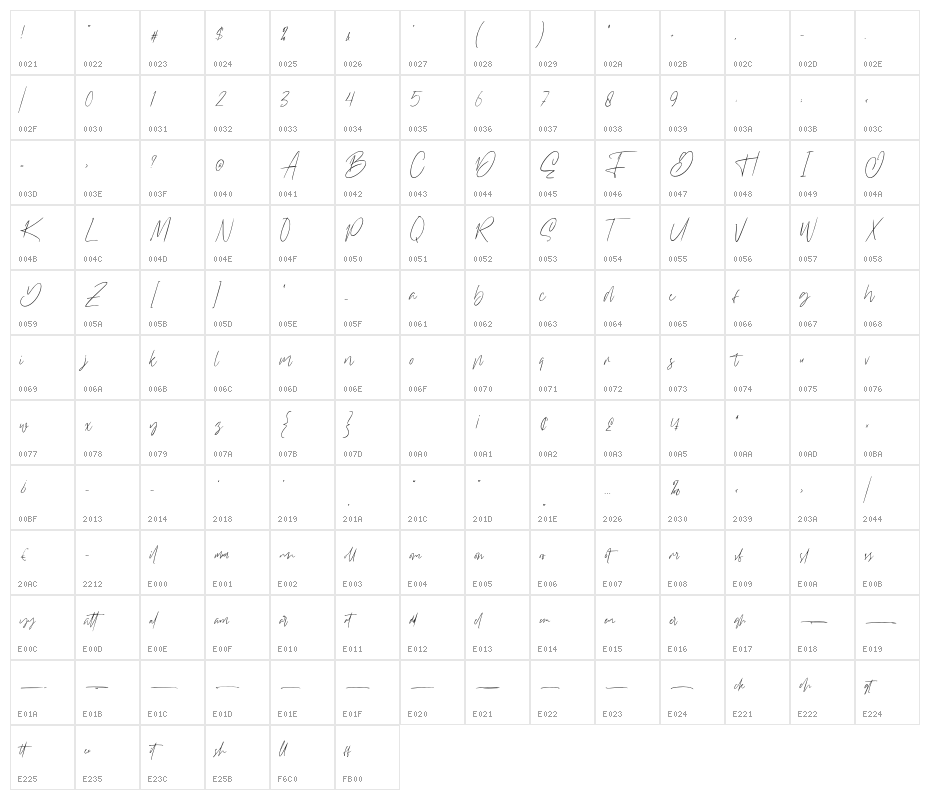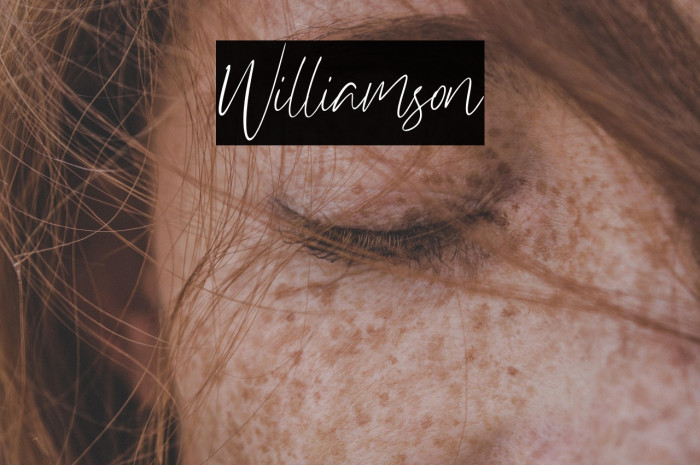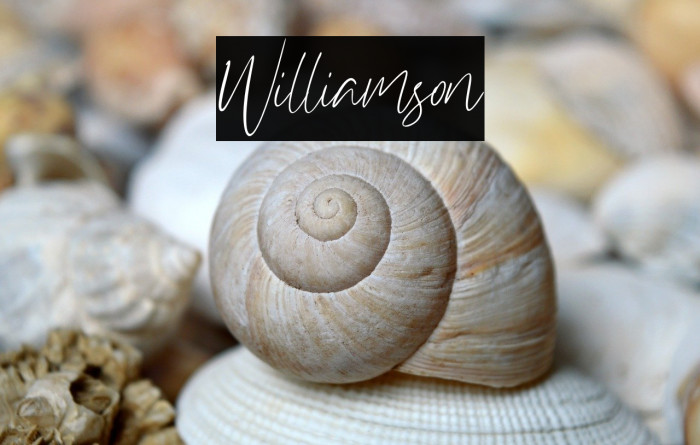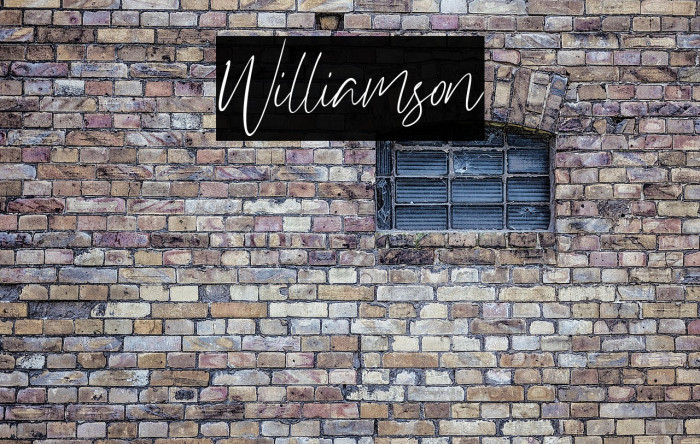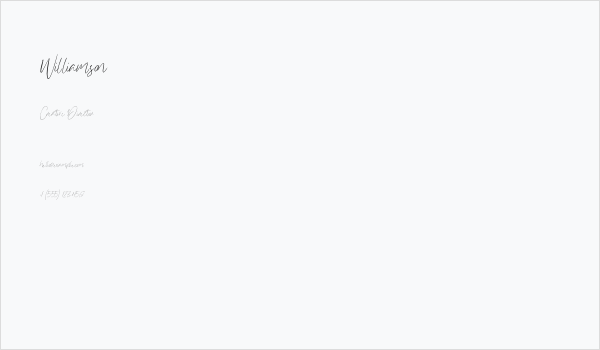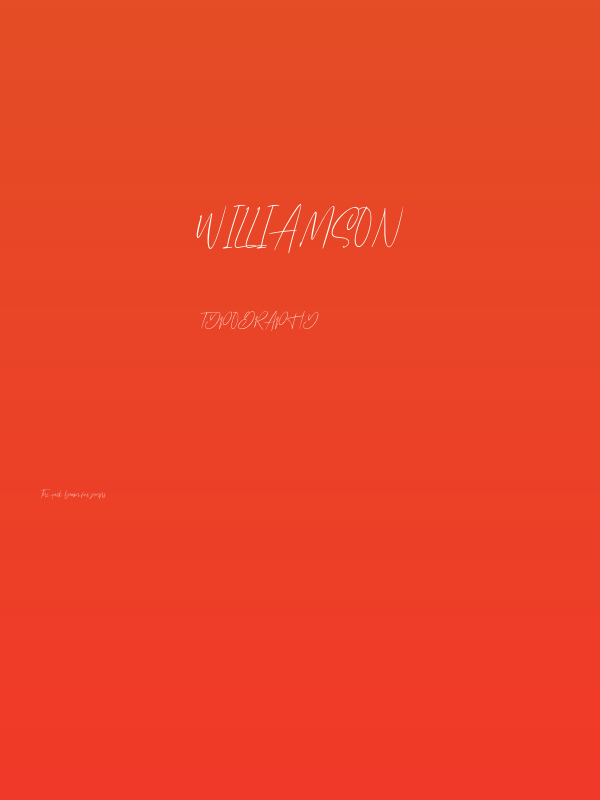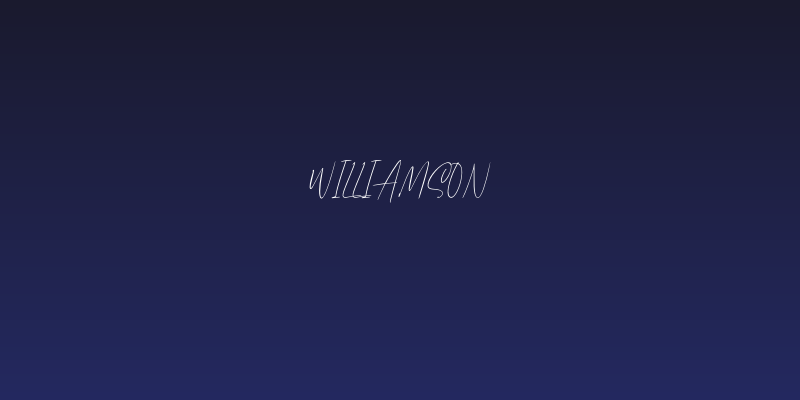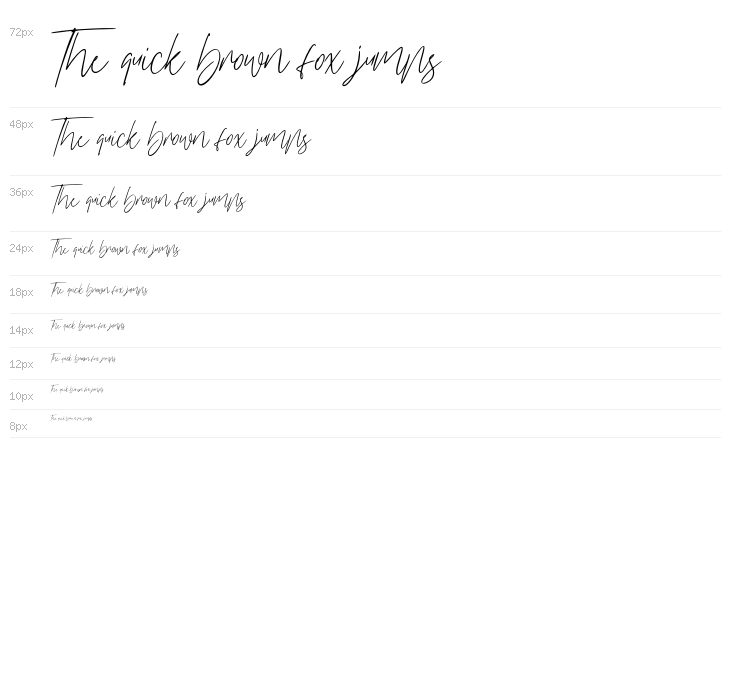
Williamson Font
Williamson Description
This font exudes a modern and elegant handwritten style, characterized by its fluid and cursive letterforms. The uppercase letters are tall and slightly slanted, giving a sense of movement and grace. The lowercase letters maintain a consistent flow, with smooth connections between strokes that enhance its script-like appearance. The numerals are distinct and maintain the same flowing style, ensuring readability. Special characters are integrated seamlessly, maintaining the overall aesthetic. This font's delicate lines and artistic flair make it suitable for creative and expressive designs.
| Proposed Projects | Ideal for wedding invitations, personal branding, greeting cards, and artistic projects. |